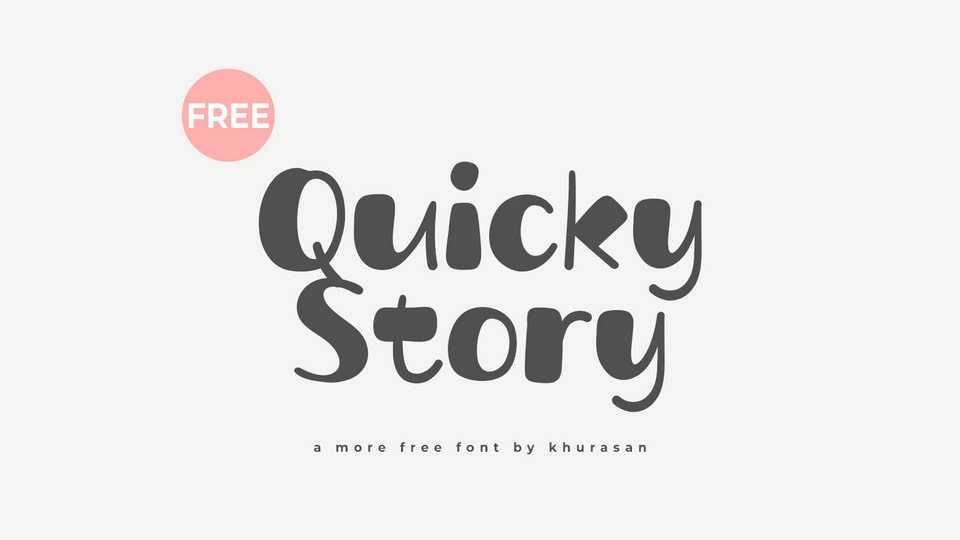
Download Quicky Story font, a playful and adorable hand-drawn typeface that combines high contrast strokes with soft, delicate lines. The font is crafted with care, creating a delightful typographic experience that feels both dynamic and charming.